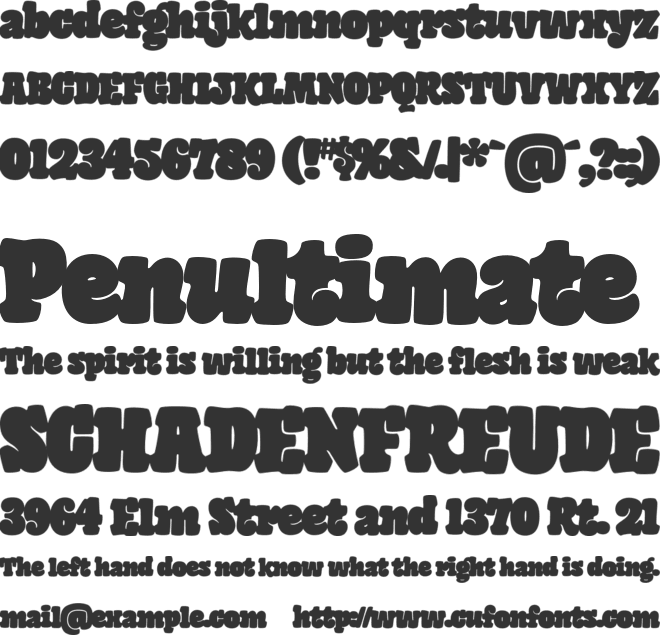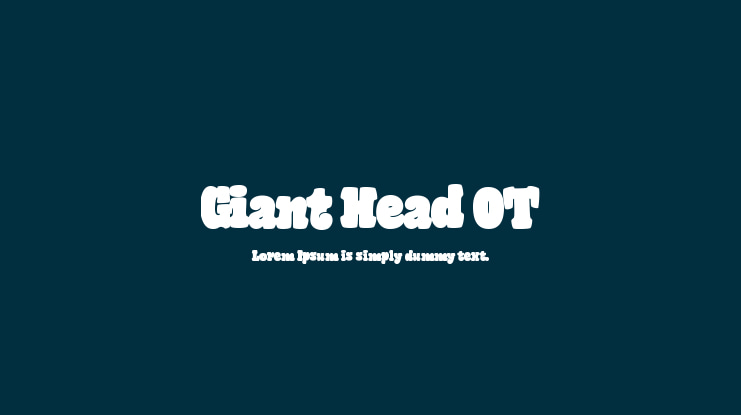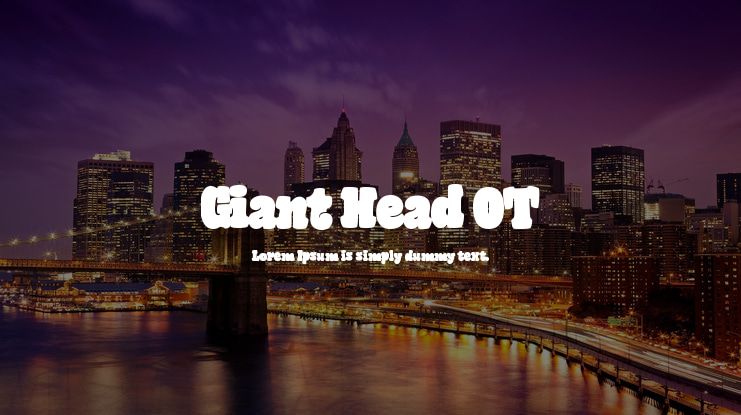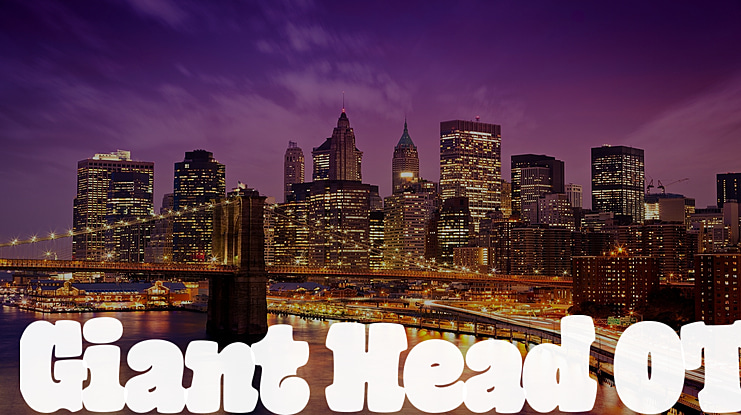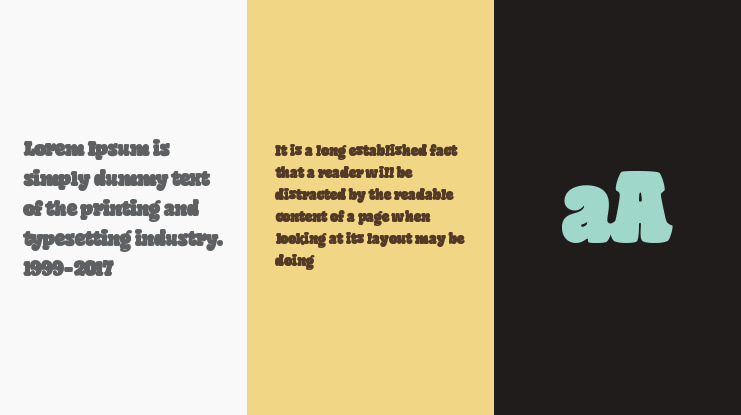
Giant Head OT Font Family
Jess Latham
This slab serif font was hand-drawn to an extreme weight. There are two fonts, Giant Head & Giant Head Two. They are layered on top of each other in your graphics program or if you like just use the regular version.